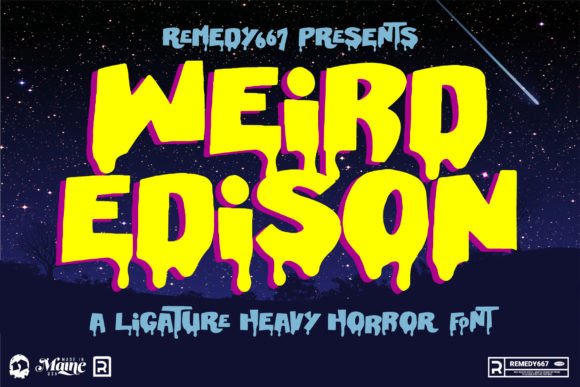
Welcome to the realm of the extraordinary, where fonts take on a life of their own. Meet Weird Edison, a display font family that will send shivers down your spine and add a touch of eerie elegance to your designs. Inspired by the heart-stopping thrills of the 90s classic, Zombies Ate my Neighbors, Weird Edison is not just a font; it's a gateway to a world of haunting beauty.
With its spooky horror charm, Weird Edison is the perfect choice for designers seeking to create logos that ooze individuality and leave a lasting impression. Its unique, creepy twist will make your designs stand out from the mundane, captivating audiences with its spine-tingling allure. Unleash your creativity and let Weird Edison transform your designs into masterpieces of the macabre.
Beyond its aesthetic appeal, Weird Edison is a font of exceptional functionality. Encoded with PUA, this font allows you to effortlessly access all glyphs and swashes, giving you unparalleled freedom to craft designs that are as diverse as your imagination. Say goodbye to limitations and embrace a world of boundless creativity with Weird Edison.
Weird Edison is more than just a font; it's an experience that will transport you to a realm of mystery and intrigue. Let its chilling beauty captivate your senses and inspire designs that are both haunting and unforgettable. Download Weird Edison today and embark on a journey into the unknown, where your creativity will flourish amidst the shadows. Embrace the weird, embrace the Edison, and let your designs become legendary.